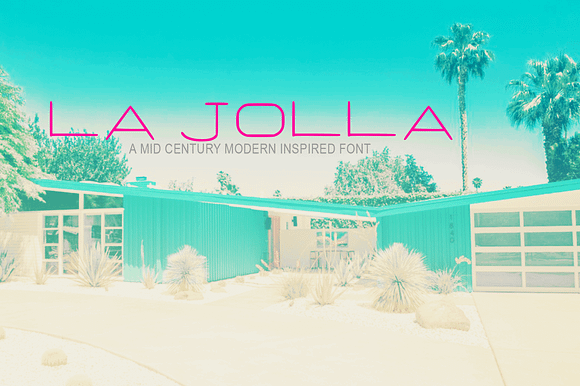
La Jolla Mid Century Inspired Font
La Jolla Mid Century Inspired Font by CelesteDuffy is a font selected for branding, posters, packaging, typography.
La Jolla Mid Century Inspired Font by CelesteDuffy fits naturally into Branding, posters, packaging, typography.